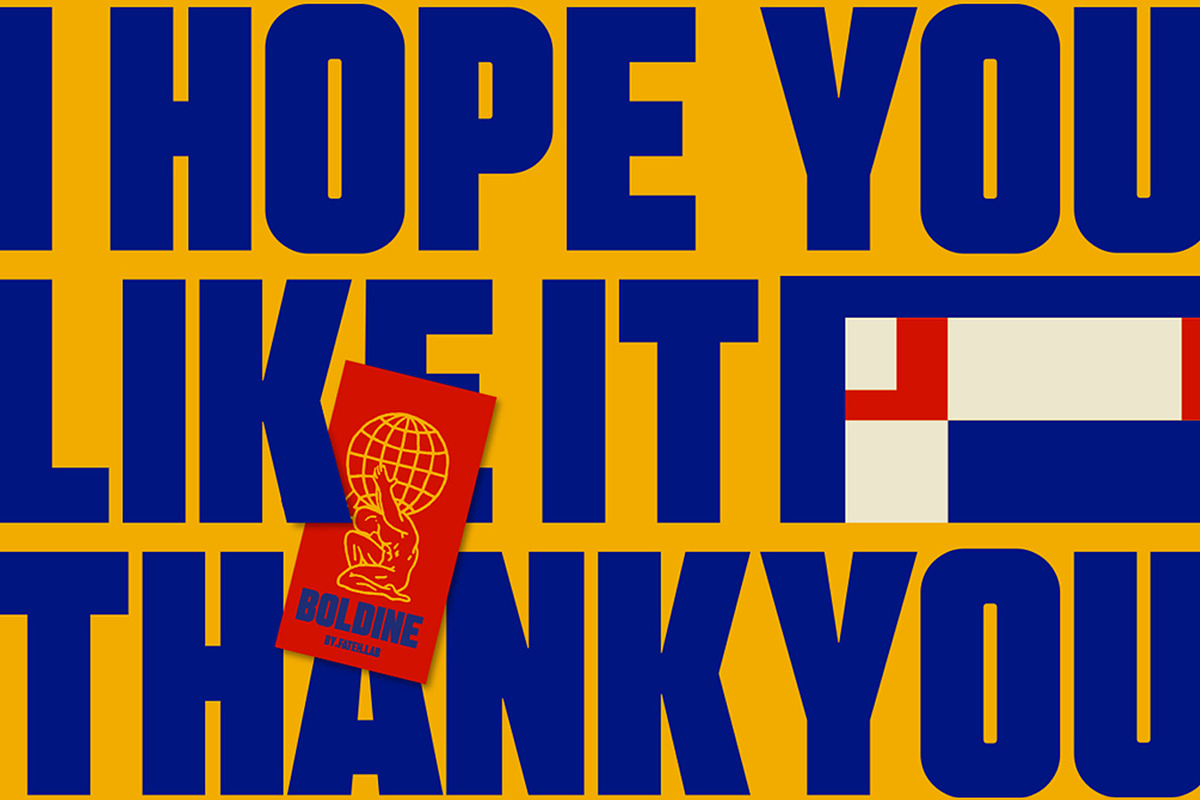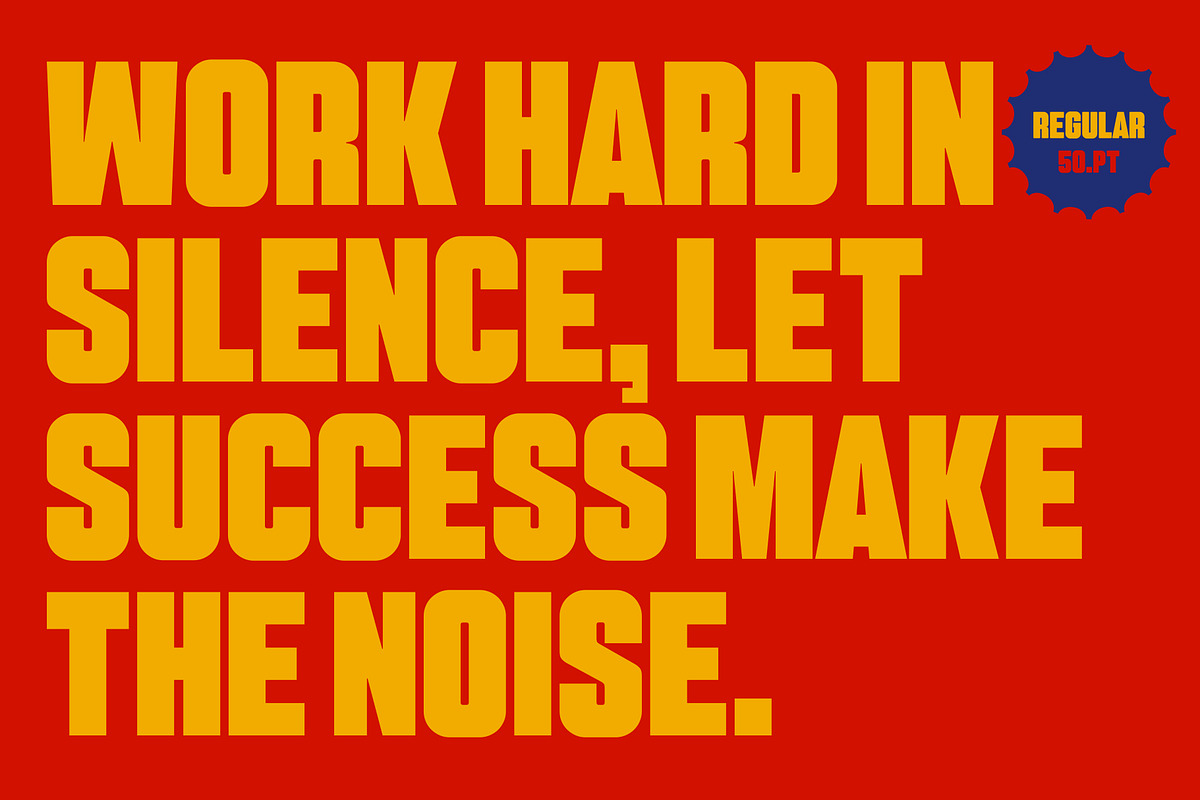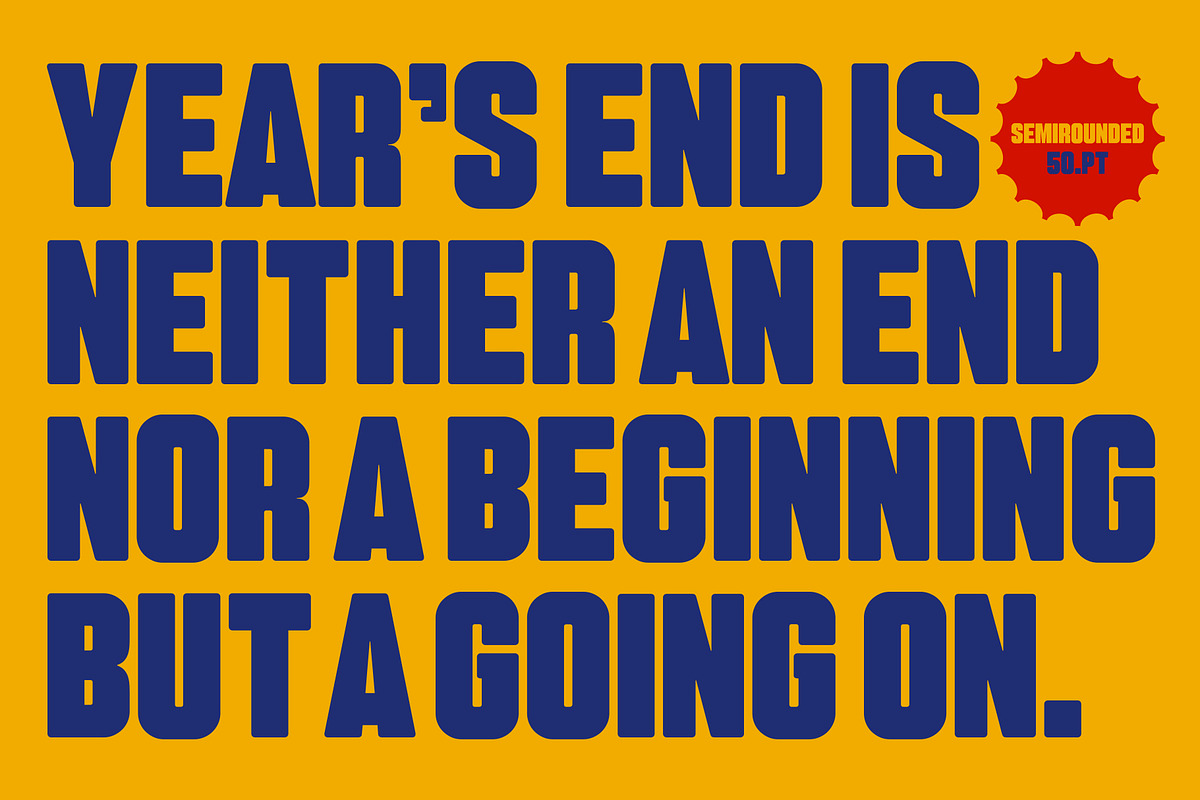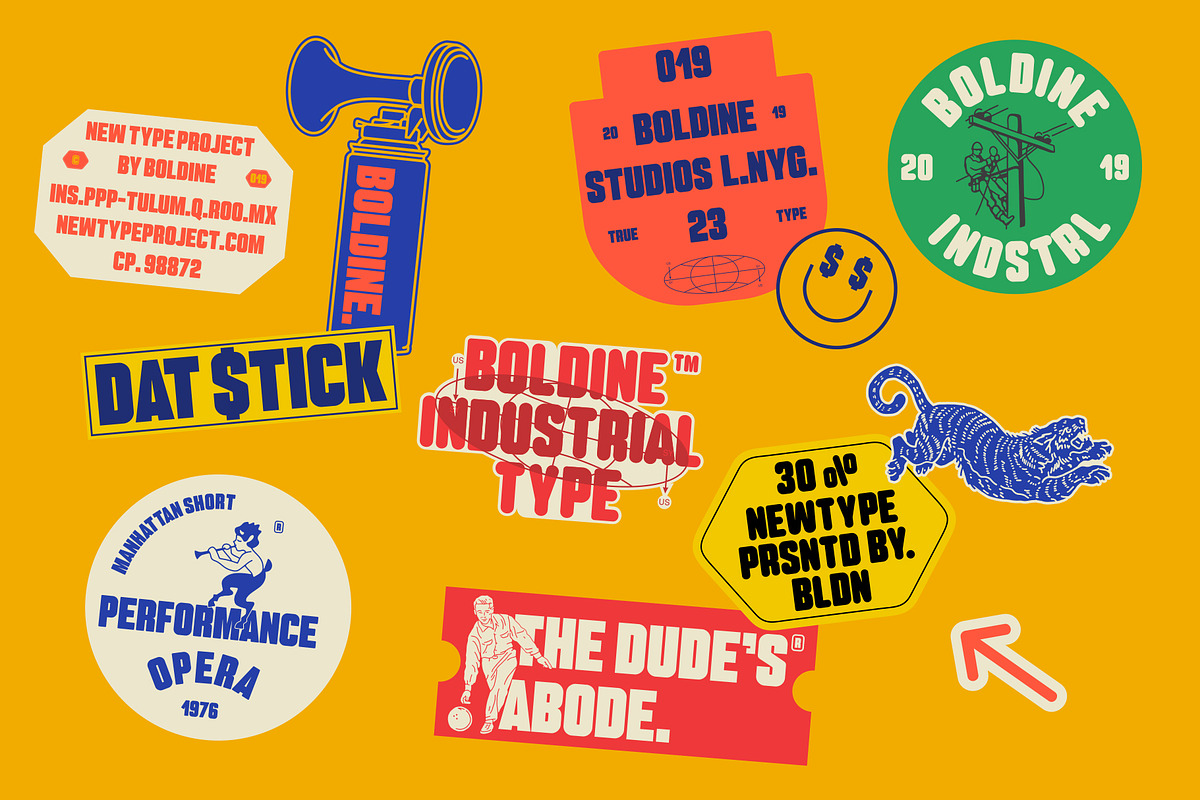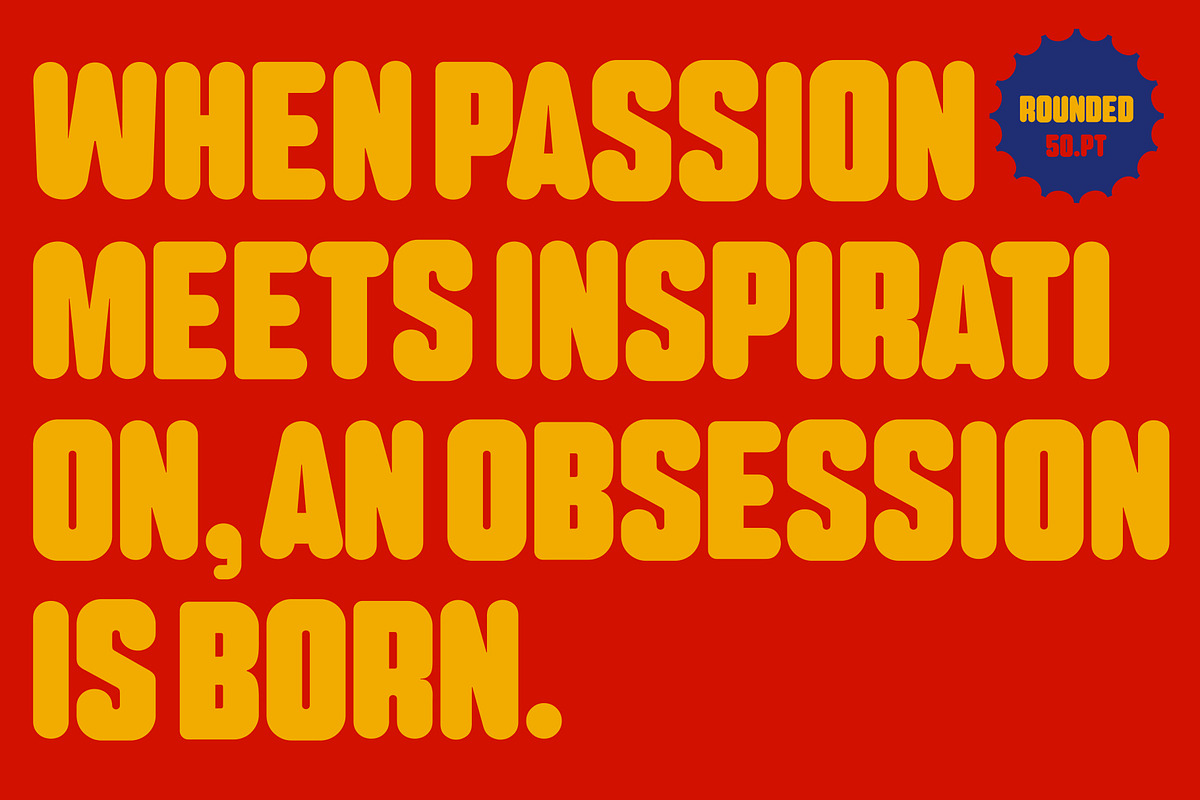
Boldine: urban & bold sans
Boldine is a strong and elegant typeface display. Inspired by the style of design that is currently popular, and this is the answer to all the needs of every idea that you will pour in this modern era, with a thick and solid style in each letter as if this font has a soul in it.
Its weight is superior in posters, social media, headlines, titles, large format print - and wherever you want to be noticed.